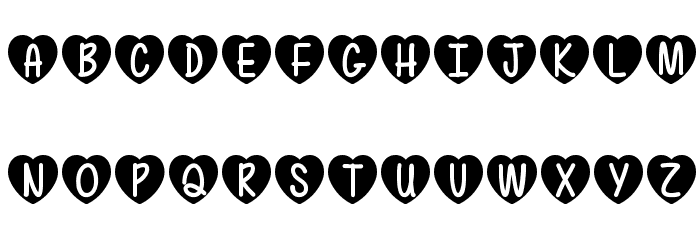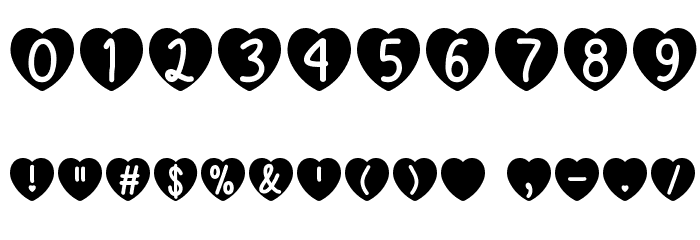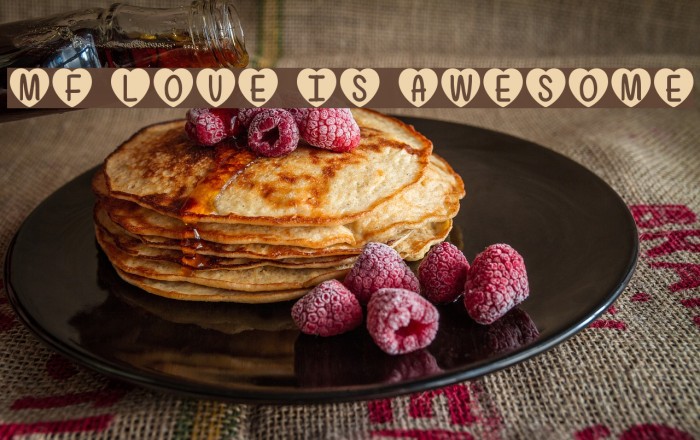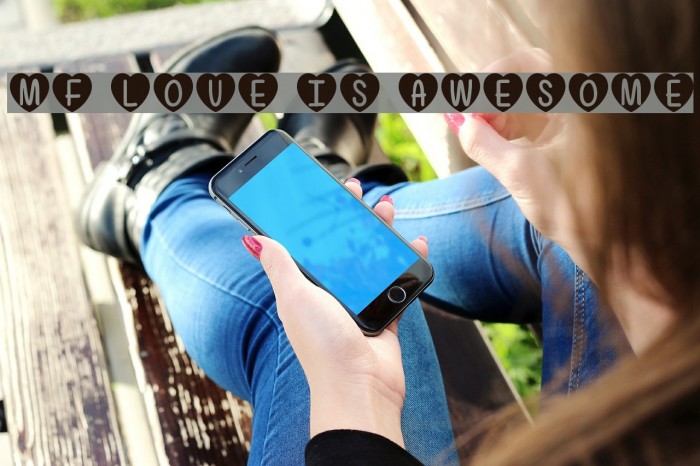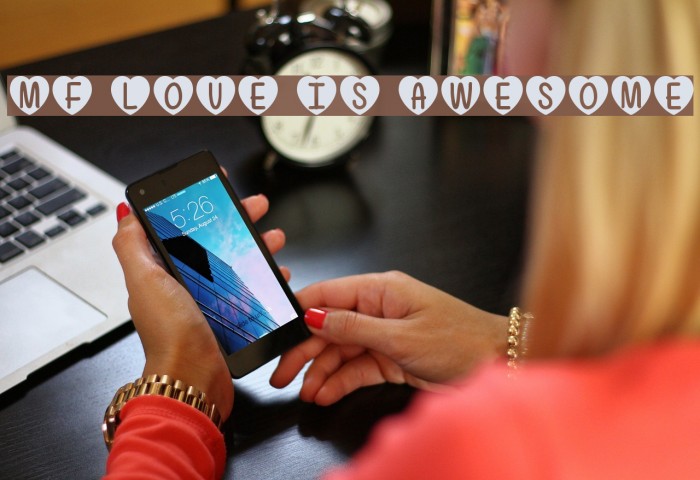
Mf Love Is Awesome Font
This playful and decorative font is characterized by its unique design where each character is enclosed within a heart shape. The letters and numbers are bold and clear, making them stand out against the heart backdrop. The font combines a whimsical, romantic theme with a modern twist, ideal for projects that aim to convey love, affection, or a fun, lighthearted tone. The consistent use of heart shapes provides a cohesive and charming aesthetic, perfect for Valentine's Day cards, wedding invitations, or any design that benefits from a touch of romance.
A decorative font with characters enclosed in heart shapes, perfect for romantic themes.
- Proposed Projects: Ideal for Valentine's Day cards, wedding invitations, love-themed posters, and playful branding.
- Use Case: Headlines, Logos, Invitations